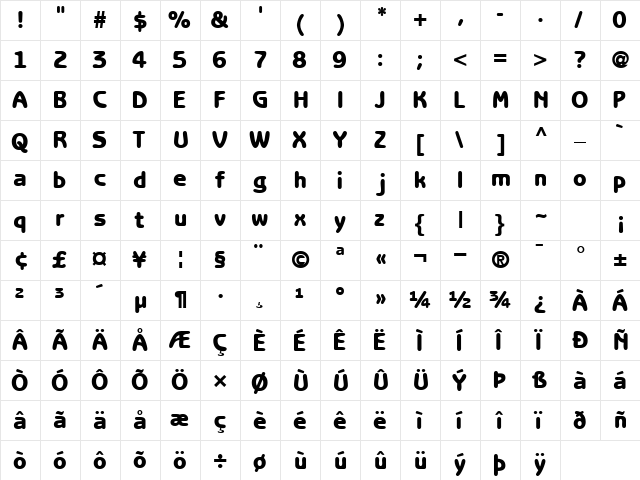
ExpressDecoGothicBlackSSK Regular
Design Context for ExpressDecoGothicBlackSSK Typeface
ExpressDecoGothicBlackSSK takes a clean, functional approach — its unadorned letterforms prioritise legibility and work reliably across screen and print environments.
Font Pairing: Works well alongside a characterful serif or display font that can carry the expressive load while ExpressDecoGothicBlackSSK handles the functional copy.
Pro Tip: Pair ExpressDecoGothicBlackSSK with a display or serif font for headlines — its neutral character makes it an excellent supporting player in complex typographic systems.